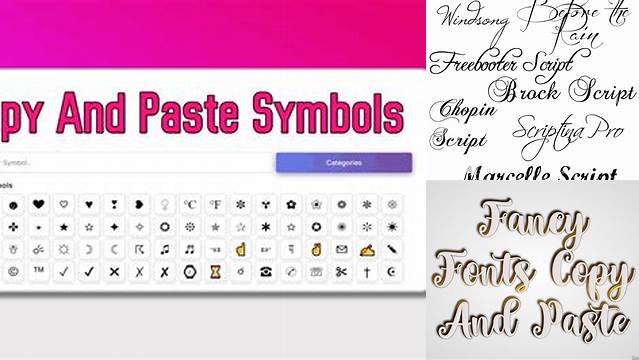
Fancy Text Fonts & Symbols: Copy And Paste!
Hey guys! Ever wanted to spice up your social media posts, messages, or even documents with some cool and fancy text fonts and symbols? Well, you've come to the right place! In this article, we're diving deep into the world of unique text styles, exploring how you can generate and use them, and why they're so darn awesome. Forget boring, plain text – let's get fancy!
1. Understanding Fancy Text: What's the Deal?
So, what exactly is fancy text? It's not just about changing the font in your word processor. We're talking about text that uses special Unicode characters to create different styles, from cursive and bold to bubble letters and even upside-down text. These fancy text fonts are a fun way to add personality and flair to your online presence. Think about it: a bold message can grab attention, a cursive font can add elegance, and quirky symbols can make your posts stand out from the crowd. Using these styles isn't just about aesthetics; it’s about making your words pop and reflecting your unique style. The internet is a crowded place, and fancy text is one way to ensure your voice is heard and remembered. It's like adding a visual signature to your digital footprint, making each interaction a bit more memorable and engaging.
2. Generating Fancy Text: The Tools of the Trade
Okay, so you're sold on the idea of fancy text, but how do you actually create it? You're probably not going to manually type out each character using a special keyboard (because, let’s be real, who has time for that?). That’s where fancy text generators come in! These nifty tools are available online and allow you to simply type your message into a box, and voilà ! They instantly convert your text into a variety of stylish fonts and symbols. Most of these generators use Unicode characters, which means they’re compatible across various platforms and devices. All you have to do is copy and paste the generated fancy text into your desired location, whether it’s a social media post, a chat message, or an email. The beauty of these tools is their simplicity and speed. You can experiment with different styles, see what looks best, and quickly implement the changes without any technical hassle. It’s all about making the process of creating unique text as smooth and enjoyable as possible, so you can focus on the message you want to convey and the impression you want to make.
3. Fancy Text Fonts for Social Media: Stand Out in the Crowd
Social media is a battleground for attention, and fancy text fonts can be your secret weapon. Think about scrolling through your feed – what makes you stop and read a post? Often, it's something visually striking. Using fancy text in your usernames, bios, and posts can instantly make your profile more eye-catching. Imagine a bold, italicized name that pops against a sea of plain text profiles. Or a catchy slogan written in bubble letters that immediately grabs the reader's attention. Fancy text isn’t just about looking cool; it’s about effective communication. Different fonts and symbols can convey different moods and tones, allowing you to inject personality and emotion into your messages. A playful font might be perfect for a casual update, while a more elegant script could be ideal for a heartfelt message. By carefully selecting the right fancy text, you can create a cohesive and engaging brand identity across your social media platforms. It’s a small change that can make a big difference in how you're perceived and remembered online.
4. Fancy Text Symbols: Adding Flair to Your Messages
Symbols are a fantastic way to add visual interest and flair to your messages. Beyond the basic emojis, there's a whole universe of Unicode symbols out there, from stars and hearts to arrows and geometric shapes. Incorporating these symbols into your text can break up the monotony of plain lettering and help you express yourself more creatively. Fancy text symbols are particularly useful for bullet points, headings, and highlighting key information. Imagine turning a simple list into a visually appealing piece with the use of stylish bullets, or adding a decorative border to a special announcement. Symbols can also convey emotions and nuances that words sometimes can't. A simple heart can add warmth to a message, while a star can highlight an important point. The key is to use symbols sparingly and purposefully, so they enhance your message rather than distract from it. With a little creativity, fancy text symbols can transform your ordinary messages into something truly special and engaging.
5. Cursive Text Generators: Elegance at Your Fingertips
Want to add a touch of elegance to your digital communication? Cursive text generators are your go-to tool. These generators convert your regular text into beautiful, flowing script styles that mimic handwriting. Cursive fonts are perfect for adding a personal and sophisticated touch to invitations, thank-you notes, and even social media posts. Imagine crafting a birthday message in a graceful cursive font, or writing a heartfelt note to a friend in an elegant script. The beauty of cursive text lies in its ability to convey warmth and sincerity. It feels more intimate and personal than standard fonts, making it ideal for situations where you want to make a connection. Cursive text generators offer a wide range of styles, from traditional calligraphy to modern, flowing scripts, so you can find the perfect match for your message and personality. Whether you're looking to add a touch of class or simply want to stand out from the crowd, cursive text is a timeless and stylish choice.
6. Bold Text Generators: Make a Statement
Sometimes, you need to make a statement, and bold text is the perfect way to do it. Bold text instantly grabs attention and emphasizes key words or phrases. It’s like shouting your message without actually raising your voice. Bold text generators make it easy to transform your regular text into a strong, impactful style. Whether you’re highlighting a call to action, emphasizing an important point, or simply want to make your headings stand out, bold text is your friend. Imagine writing a title for a blog post in bold, attention-grabbing letters, or highlighting the key benefits of your product in a marketing message. Bold text commands attention and ensures your message is not overlooked. It's a powerful tool for conveying importance and urgency, making it a staple in everything from advertising to academic writing. With bold text generators, you can quickly and easily add emphasis to your words, ensuring your message is heard loud and clear.
7. Italic Text Generators: Adding Emphasis and Style
If bold text is like shouting, italic text is like whispering – it adds emphasis in a more subtle and stylish way. Italic text is perfect for highlighting words or phrases, citing sources, or adding a touch of elegance to your writing. Italic text generators allow you to quickly convert your regular text into a slanted, sophisticated style. Imagine writing a quote in italics to set it apart from the main text, or using italics to emphasize a particular word or phrase in a sentence. Italic text is versatile and can be used in a variety of contexts, from formal documents to casual social media posts. It adds a touch of sophistication and can help draw the reader's eye to important information. Italic text can also be used to convey a sense of reflection or introspection, making it perfect for personal writing and creative pieces. With italic text generators, you can easily incorporate this stylish effect into your text, adding depth and emphasis to your message.
8. Bubble Text Generators: Fun and Playful Fonts
For a fun and playful vibe, look no further than bubble text generators. These tools transform your text into rounded, bubbly letters that are sure to put a smile on anyone’s face. Bubble text is perfect for adding a lighthearted touch to your messages, especially in informal settings like chats and social media. Imagine writing a birthday greeting in bubble letters or creating a catchy headline for a fun event. Bubble text is visually appealing and adds a sense of whimsy to your words. It’s particularly popular among younger audiences and in creative projects where you want to convey a sense of joy and playfulness. Bubble text generators are easy to use and offer a quick way to add personality to your text. Whether you’re creating a poster, sending a message to a friend, or simply want to brighten someone’s day, bubble text is a fantastic choice.
9. Upside Down Text Generators: The Ultimate Quirky Style
Want to really stand out? Try an upside down text generator! These quirky tools flip your text 180 degrees, creating a fun and attention-grabbing effect. Upside down text is perfect for adding a touch of humor and surprise to your messages. Imagine sending a message to a friend that appears upside down – it’s sure to get a reaction! This style is ideal for creating memes, adding a playful twist to your social media posts, or simply making people do a double-take. Upside down text is unconventional and guaranteed to make your message memorable. While it’s not suitable for formal communication, it’s a fantastic way to express your personality and show off your sense of humor. Upside down text generators are a quick and easy way to add a unique touch to your text, making it truly unforgettable.
30. The Future of Fancy Text: What's Next?
The world of fancy text is constantly evolving, and the future is full of exciting possibilities. As technology advances, we can expect to see even more sophisticated and creative fancy text tools and styles emerge. The future of fancy text may involve AI-powered generators that can automatically suggest font and symbol combinations based on your message and desired tone. We may also see the rise of personalized fancy text styles that reflect your individual brand or personality. The future of fancy text is about more than just aesthetics; it's about enhancing communication and self-expression in the digital age. As our online interactions become increasingly visual, fancy text will play an even more important role in helping us stand out, connect with others, and share our stories in a unique and memorable way. So, keep an eye on the ever-evolving world of fancy text – the best is yet to come!